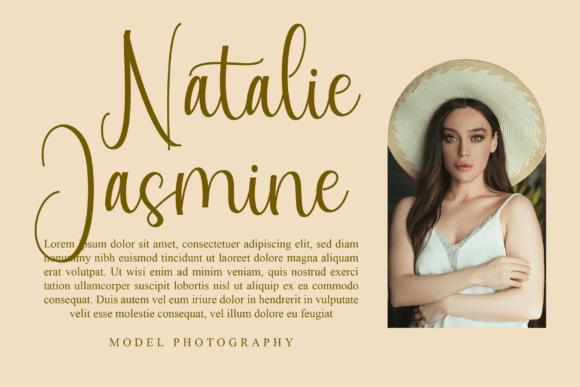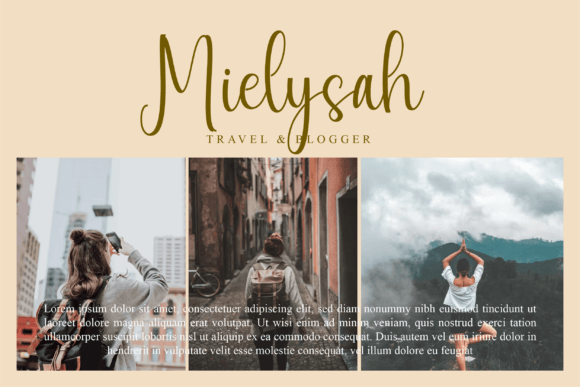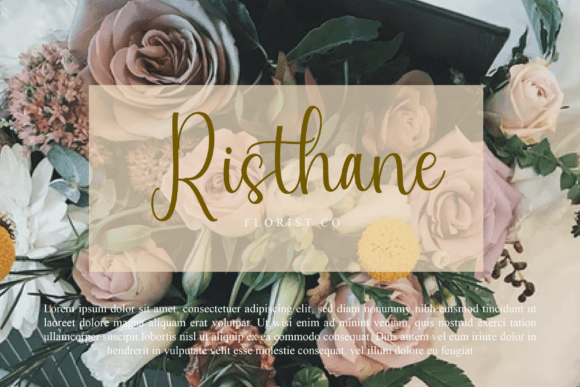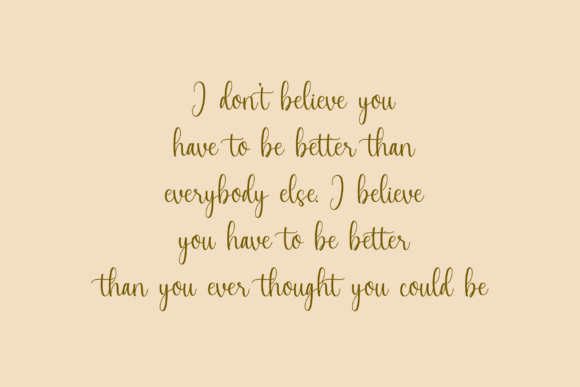
Stewart Font
About Stewart Font
Stewart, a dazzling script font, is a meticulously crafted and intricately detailed typeface that adds a touch of sophistication to your designs. Its detailed and refined design makes it a valuable asset for various creative projects, allowing it to enhance the visual appeal of your creations.
The PUA (Private Use Area) encoding of Stewart ensures easy access to all its glyphs and swashes. This means that you have the flexibility to incorporate the intricate details and special characters seamlessly into your designs, providing you with a wide range of options to customize and personalize your projects.
Whether you’re working on logos, branding, invitations, posters, or any other design that demands an elegant touch, Stewart is well-equipped to meet your creative needs. Its dazzling script style adds a level of uniqueness and flair to your typographic compositions, making it stand out in various contexts.
Explore the versatility of Stewart and leverage its detailed and sophisticated design to elevate your projects. With its PUA encoding, you have the freedom to unleash the full potential of this dazzling script font, making it a valuable addition to your font library.